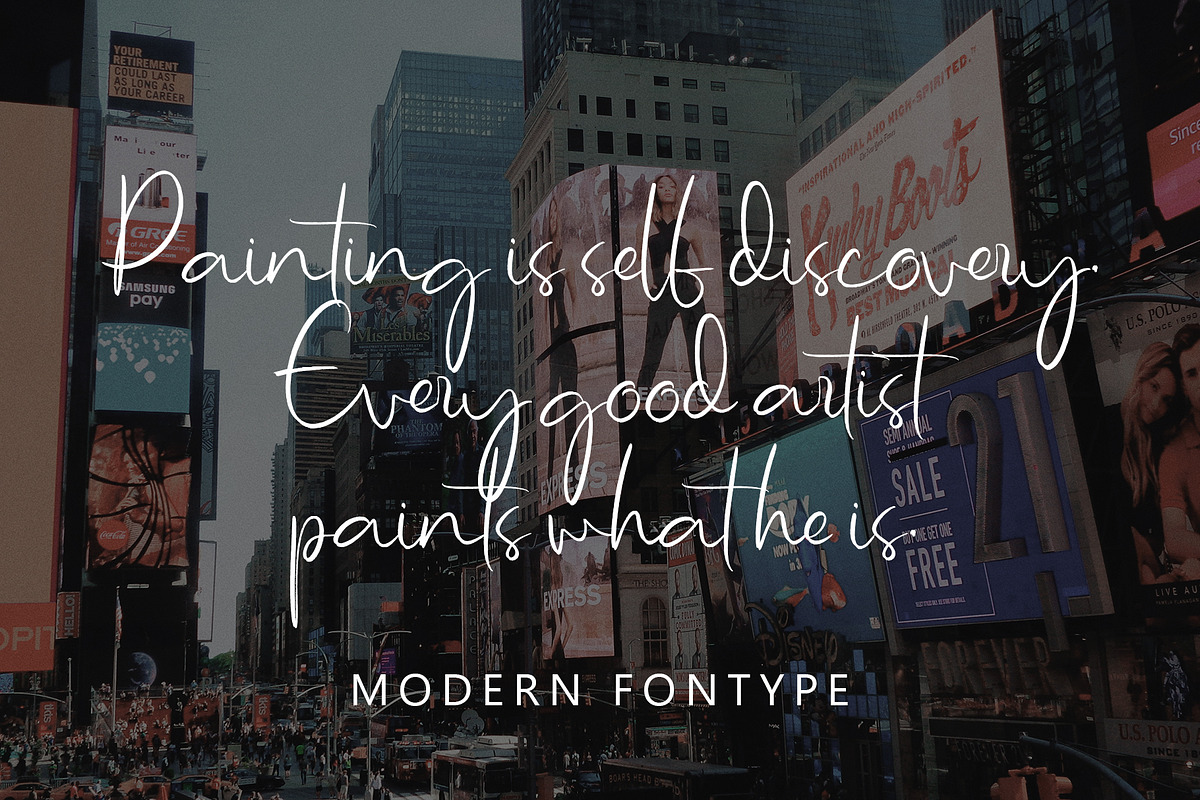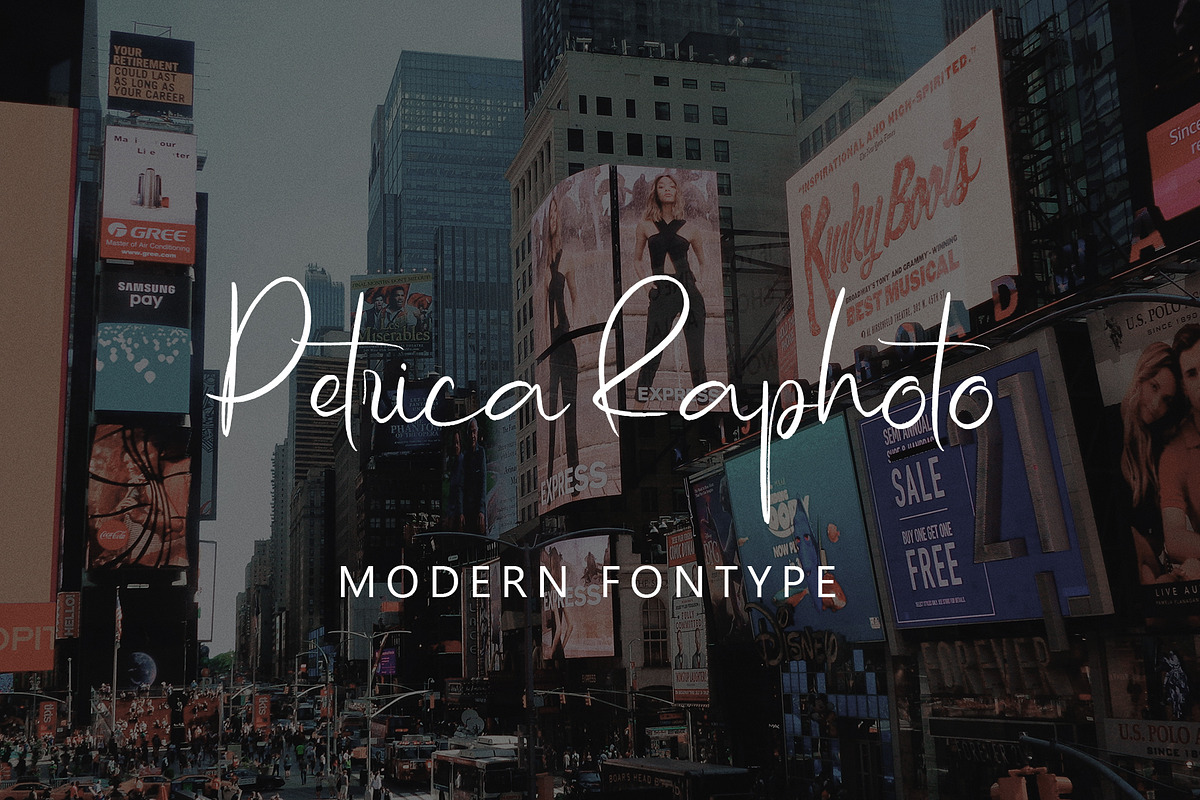
Petrica Raphoto
Petrica Raphoto with new style, this font will perfect for many different project ex: quotes, logo, blog header, poster, banding, letter, invitation, stationery, etc...